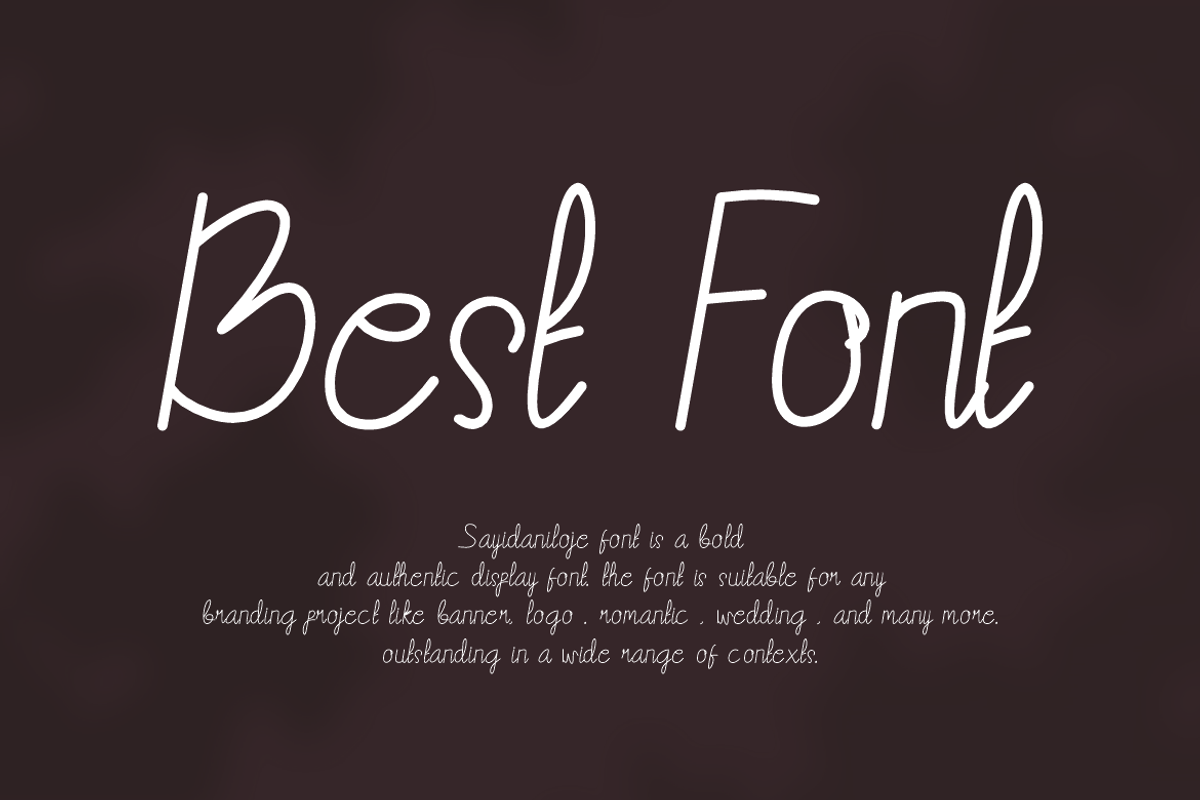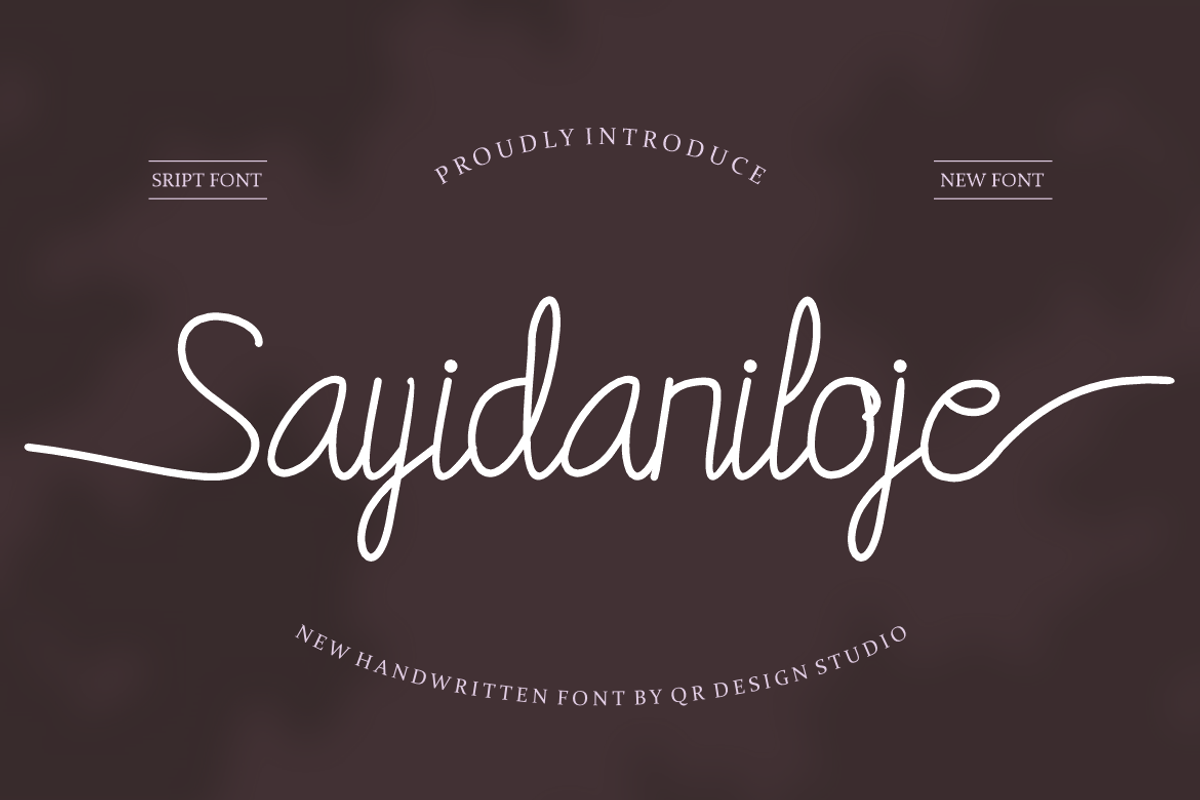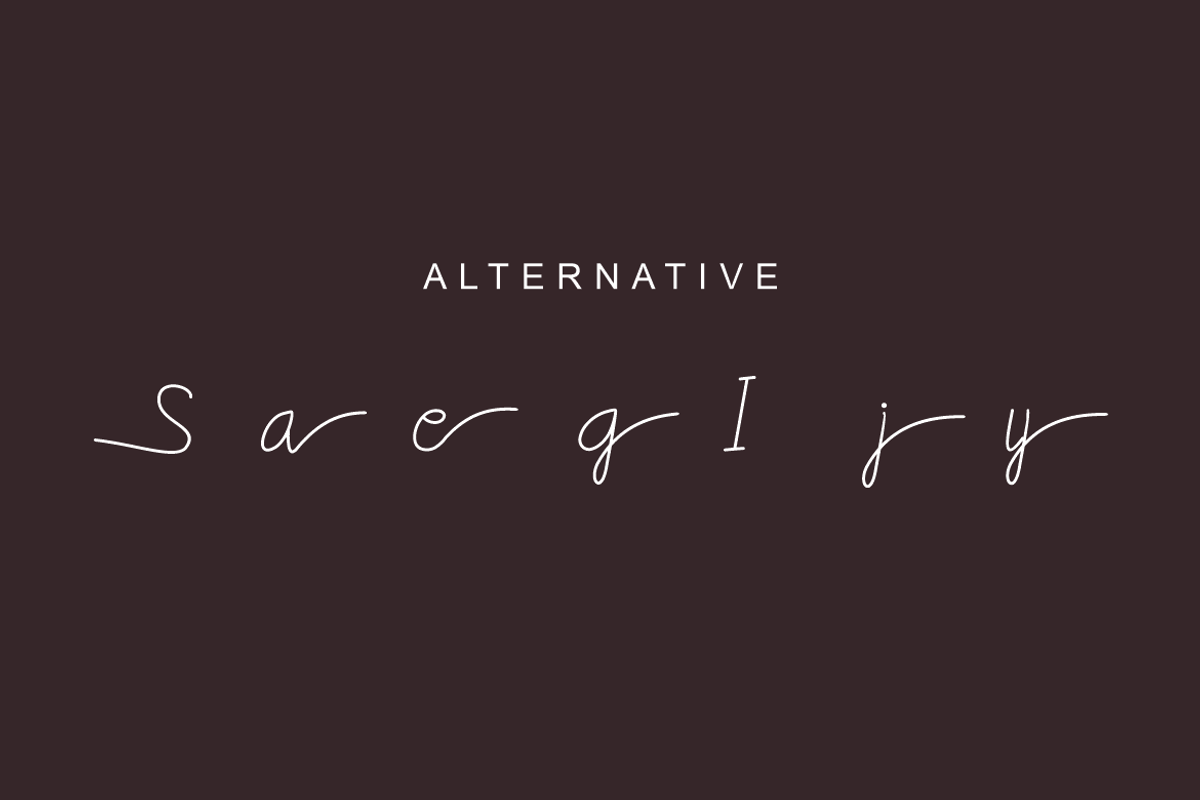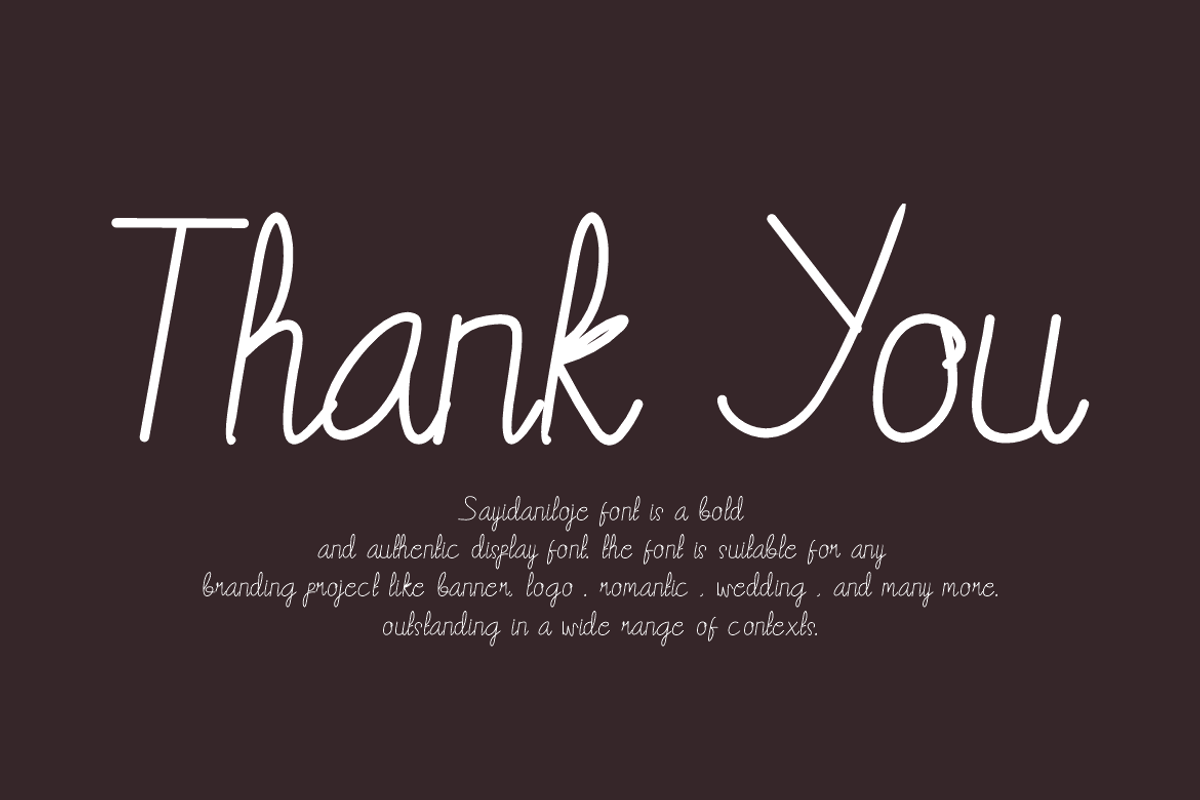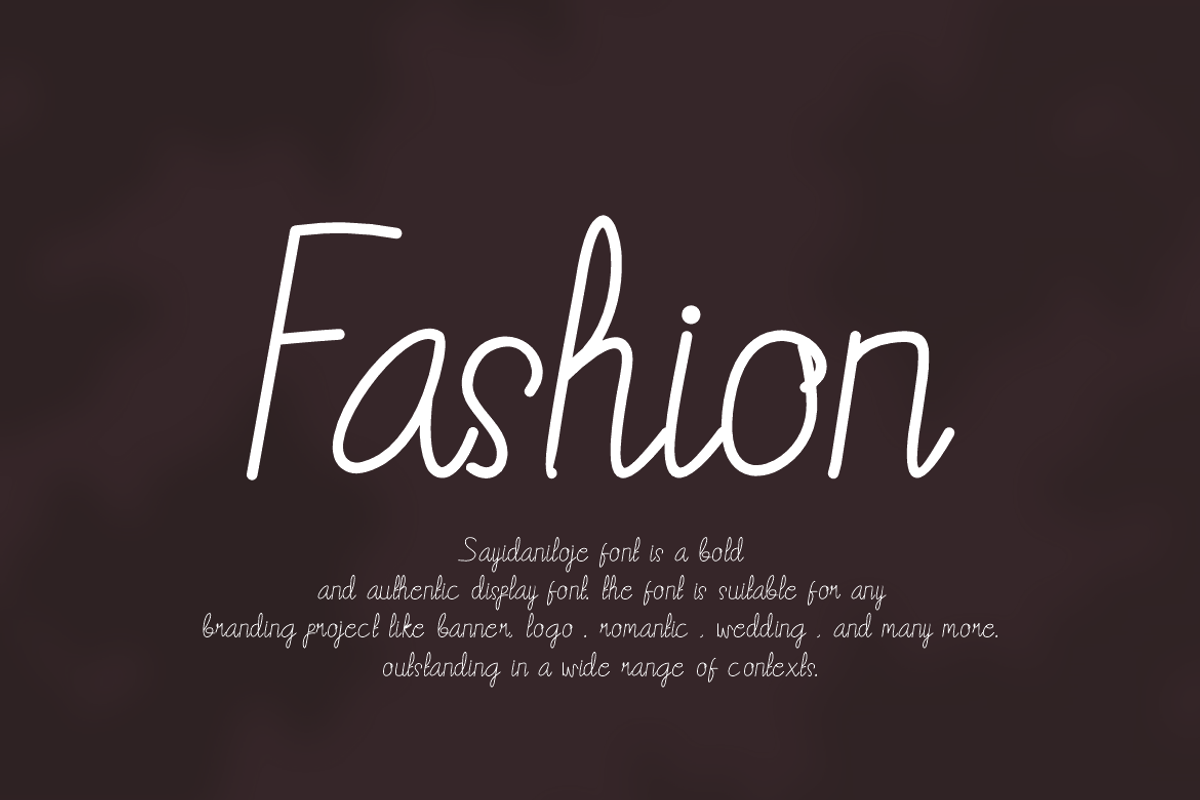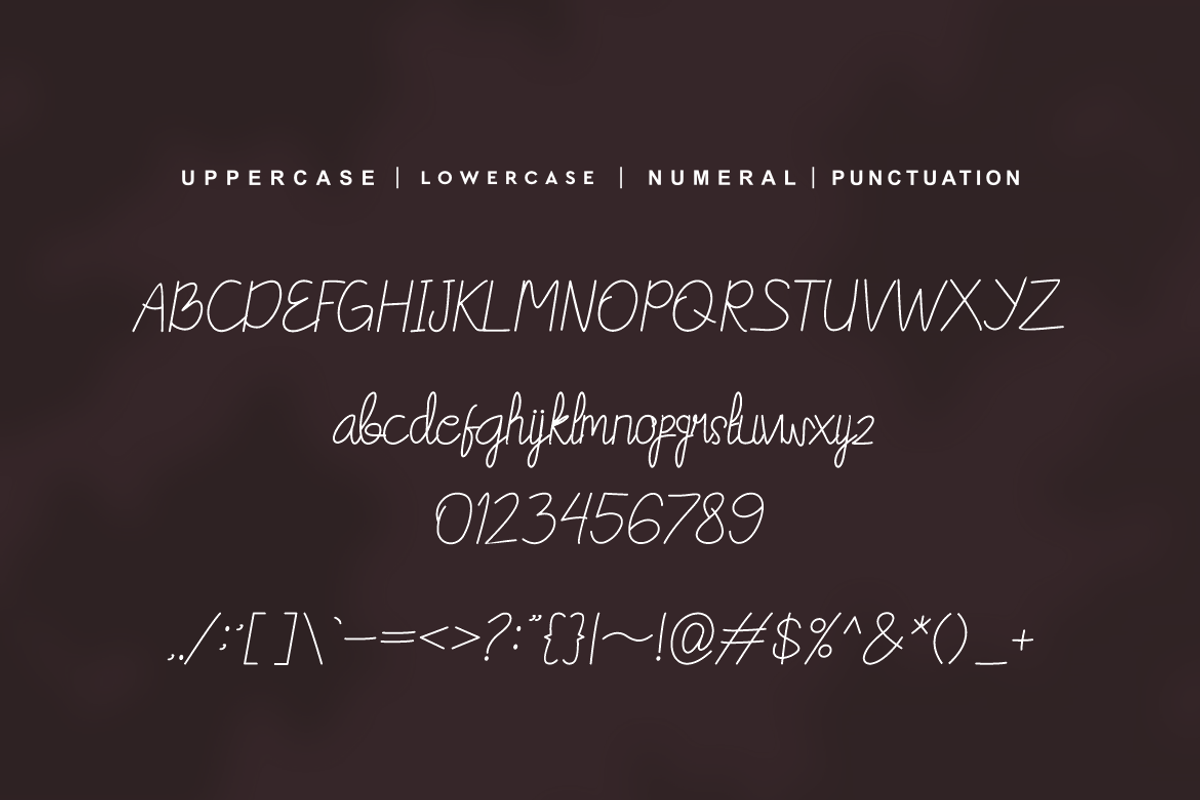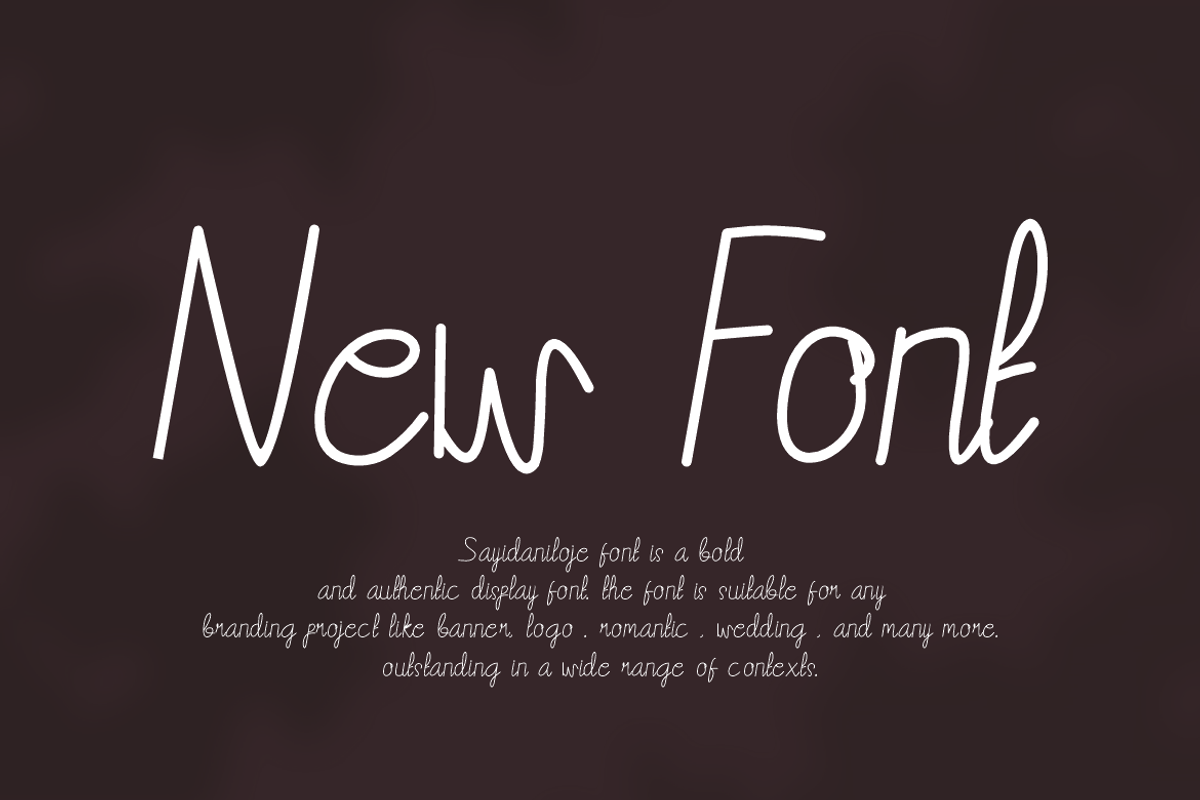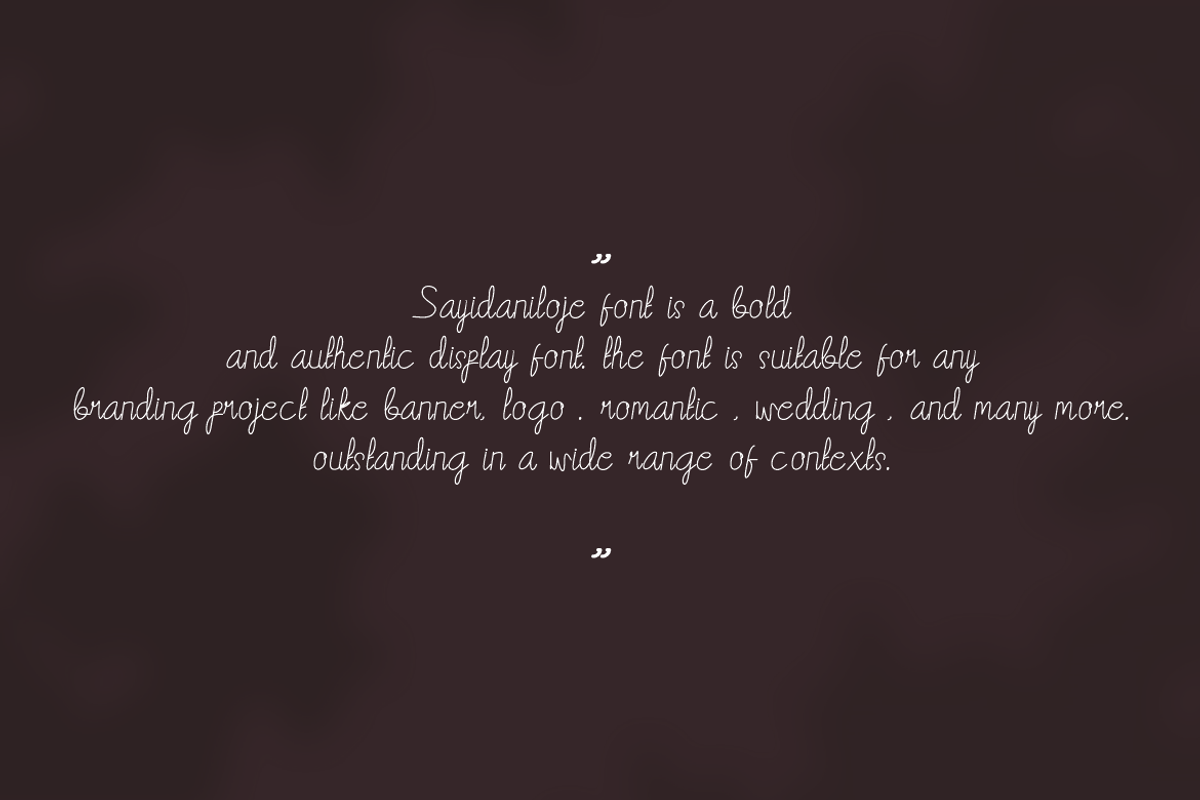
Sayidaniloje
Sayidaniloje Font is a bold and authentic display font. The font is suitable for any branding project like logo, wedding, and many more. Outstanding in a wide range of contexts.